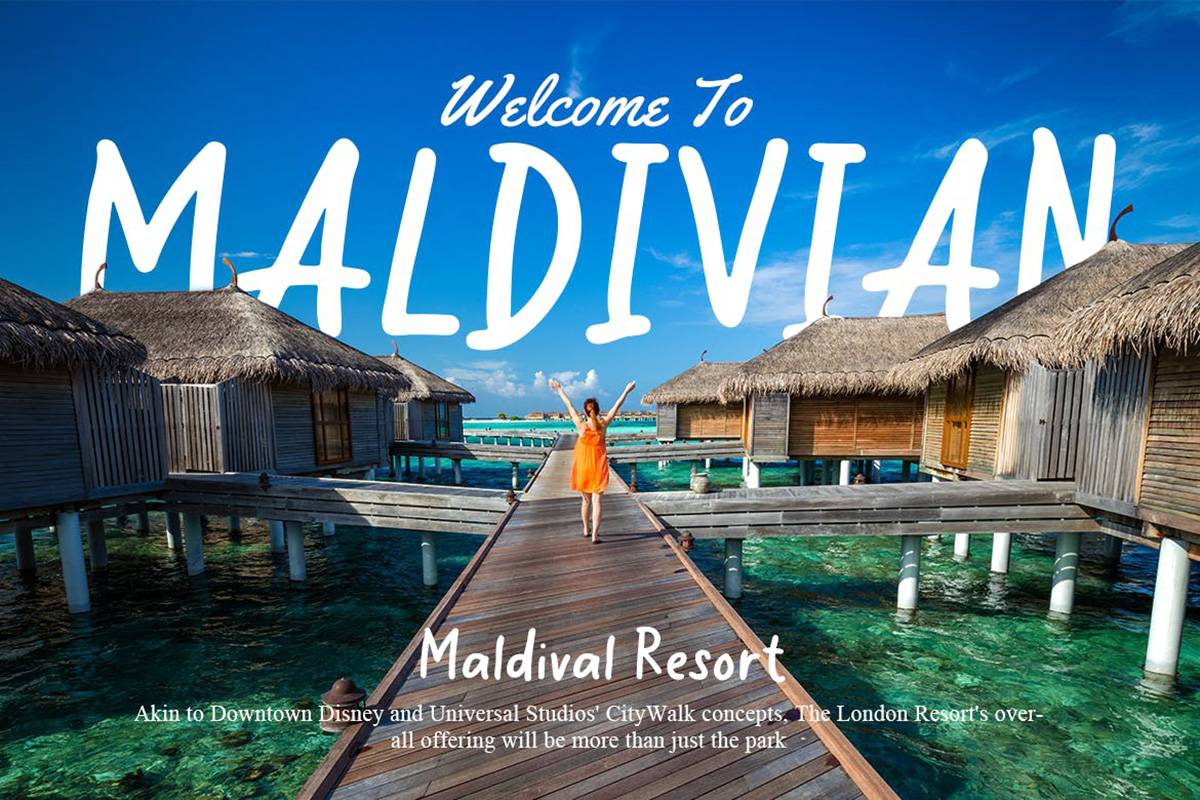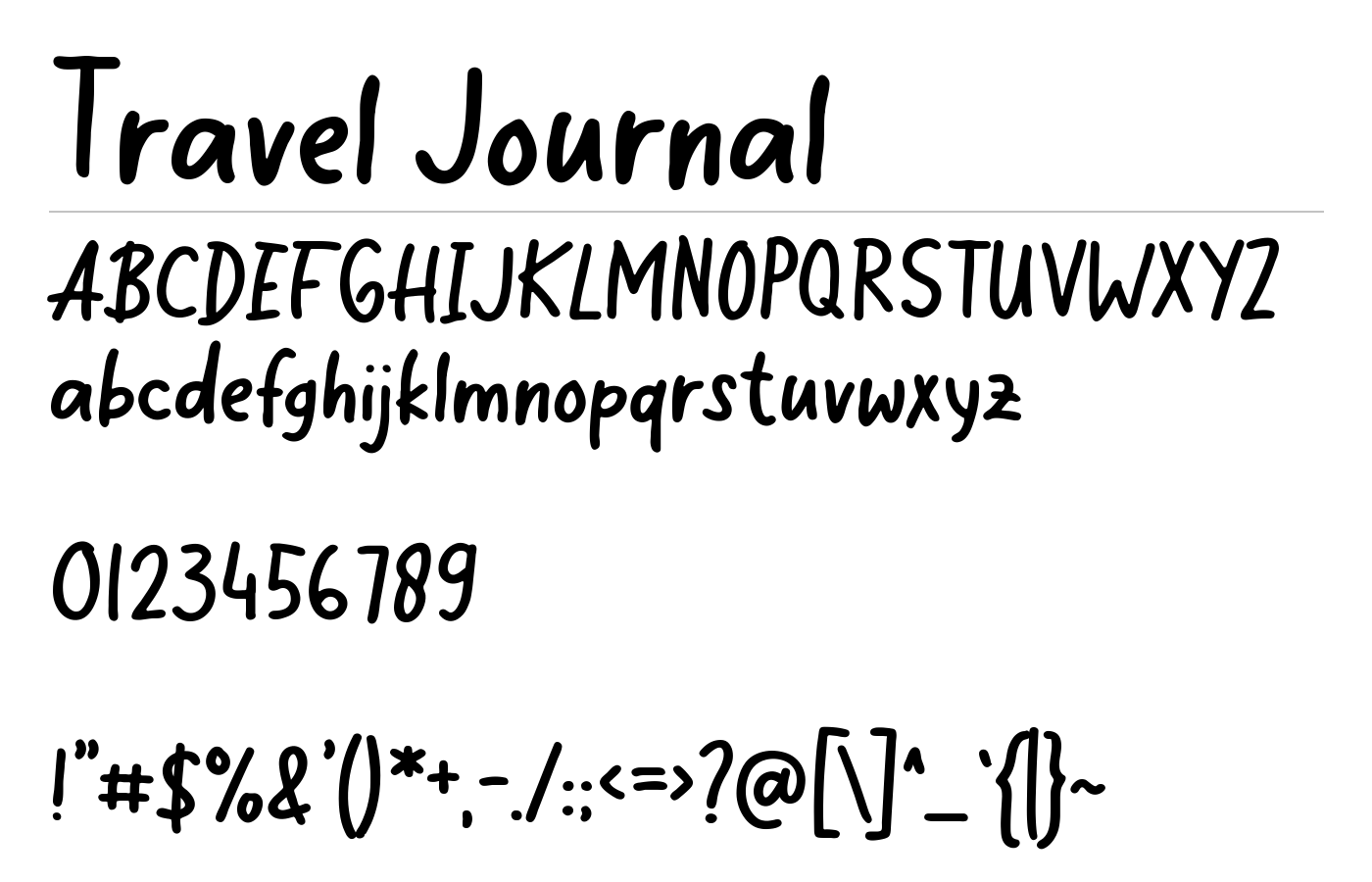
Travel Journal Font is a friendly and casual handwritten sans serif font characterized by its rounded, slightly uneven letterforms that emulate natural pen strokes. Its medium weight and open spacing create a relaxed, approachable feel, making it perfect for personal projects, travel blogs, children’s books, and informal branding that seeks a warm, authentic touch. This font’s playful yet readable style adds charm and personality without sacrificing clarity, especially in headlines and short texts.
Travel Journal Font
About Travel Journal Font
| Font family | Travel Journal Font |
| Designer | Sahirul Sugih |